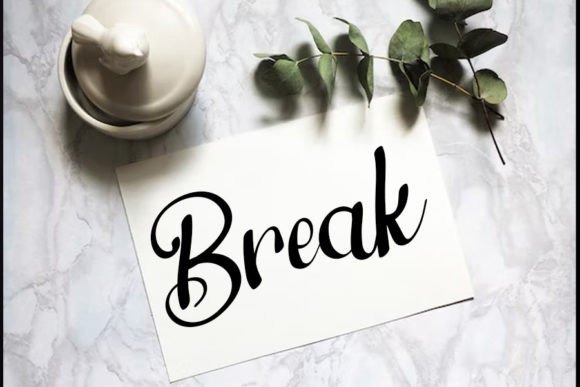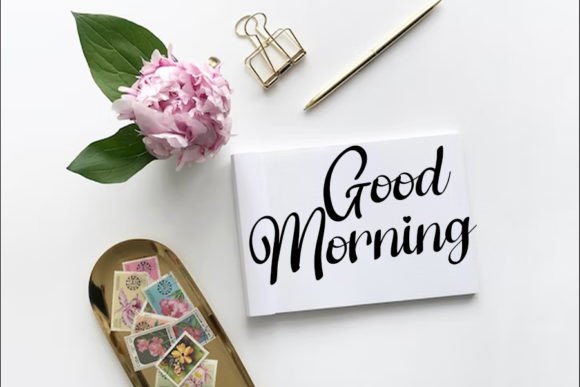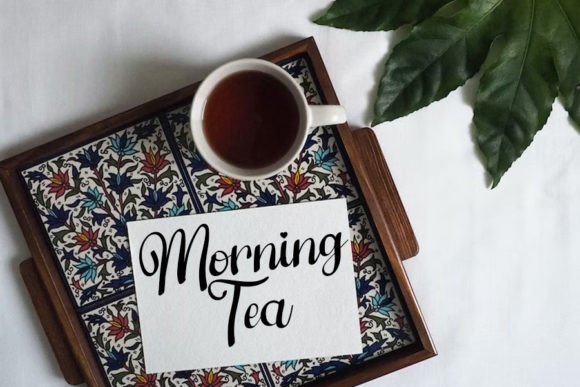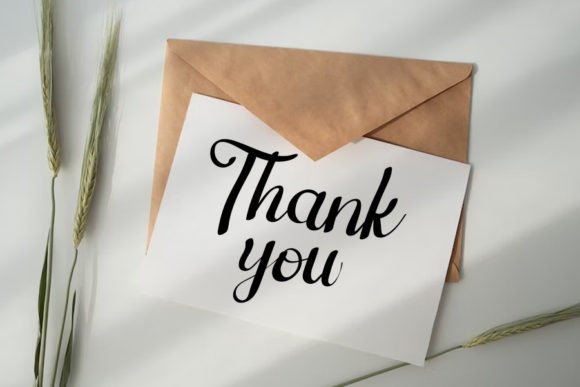
Blacklist Font: The Elegant and Charming Choice for Designers and Crafters
Are you looking for a font that exudes elegance and charm? Look no further than the Blacklist Font. This beautiful, handwritten font is perfect for adding a touch of sophistication to any design project. In this article, we’ll take a closer look at the Blacklist Font, its features, and how you can use it to elevate your designs.
What is Blacklist Font?
Blacklist Font is a stunning, handwritten font that feels equally charming and elegant. Its unique, cursive style makes it perfect for designs that require a personal touch. Whether you’re working on a wedding invitation, a thank you card, or a business logo, the Blacklist Font is sure to impress.
Features of Blacklist Font
The Blacklist Font has several features that make it a popular choice among designers and crafters. Some of its key features include:
- Elegant and Charming: The Blacklist Font has a unique, elegant style that adds a touch of sophistication to any design.
- Handwritten: The font’s handwritten style makes it perfect for designs that require a personal touch.
- Versatile: The Blacklist Font can be used for a wide range of design projects, including wedding invitations, thank you cards, quotes, greeting cards, logos, business cards, and more.
- Easy to Read: Despite its elegant style, the Blacklist Font is easy to read, making it perfect for designs that require a clear and concise message.
Uses of Blacklist Font
The Blacklist Font is a versatile font that can be used for a wide range of design projects. Here are some of the most popular uses of the font:
- Wedding Invitations: The Blacklist Font is perfect for wedding invitations, adding a touch of elegance and sophistication to your wedding stationery.
- Thank You Cards: The font’s handwritten style makes it perfect for thank you cards, adding a personal touch to your messages.
- Quotes: The Blacklist Font is great for quotes, adding a touch of elegance to your inspirational messages.
- Greeting Cards: The font can be used for greeting cards, including birthday cards, Christmas cards, and more.
- Logos: The Blacklist Font can be used for logos, adding a touch of sophistication to your brand identity.
- Business Cards: The font is perfect for business cards, adding a touch of elegance to your professional networking materials.
Tips for Using Blacklist Font
Here are some tips for using the Blacklist Font in your designs:
- Use it Sparingly: The Blacklist Font is a elegant font, so use it sparingly to avoid overwhelming your design.
- Pair it with Other Fonts: The Blacklist Font can be paired with other fonts to create a unique and interesting design.
- Experiment with Colors: The font looks great in a variety of colors, so experiment with different colors to find the one that works best for your design.
The Blacklist Font is a beautiful, elegant font that is perfect for designers and crafters looking to add a touch of sophistication to their designs. Its unique, handwritten style makes it perfect for a wide range of design projects, from wedding invitations to logos. With its ease of use and versatility, the Blacklist Font is a great choice for anyone looking to elevate their designs.